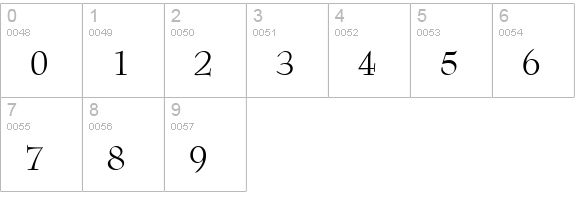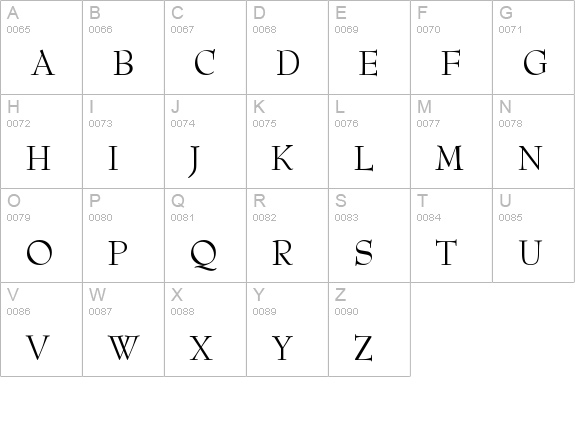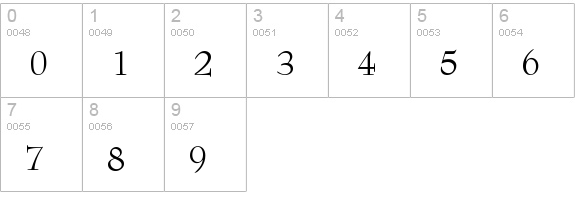
Bernadette Regular Font Details
Bernadette Regular is the standard, neutral variant in the Bernadette typeface family \xE2\x80\x94 well suited to general body text, paragraphs, and standard typographic work.
Bernadette Regular font is a stunning and elegant typeface that exudes sophistication and charm. With its smooth curves and balanced proportions, this font is perfect for adding a touch of class to any design project. The graceful letterforms of Bernadette Regular make it ideal for use in branding, invitations, packaging, and more. The best part? Bernadette Regular font is available for free download at FontsMarket.com. Now you can access this beautiful typeface without any cost, making it a valuable addition to your font library. Don't miss out on the opportunity to enhance your designs with the timeless beauty of Bernadette Regular font. Download it today and elevate your creations to new heights of style and elegance.